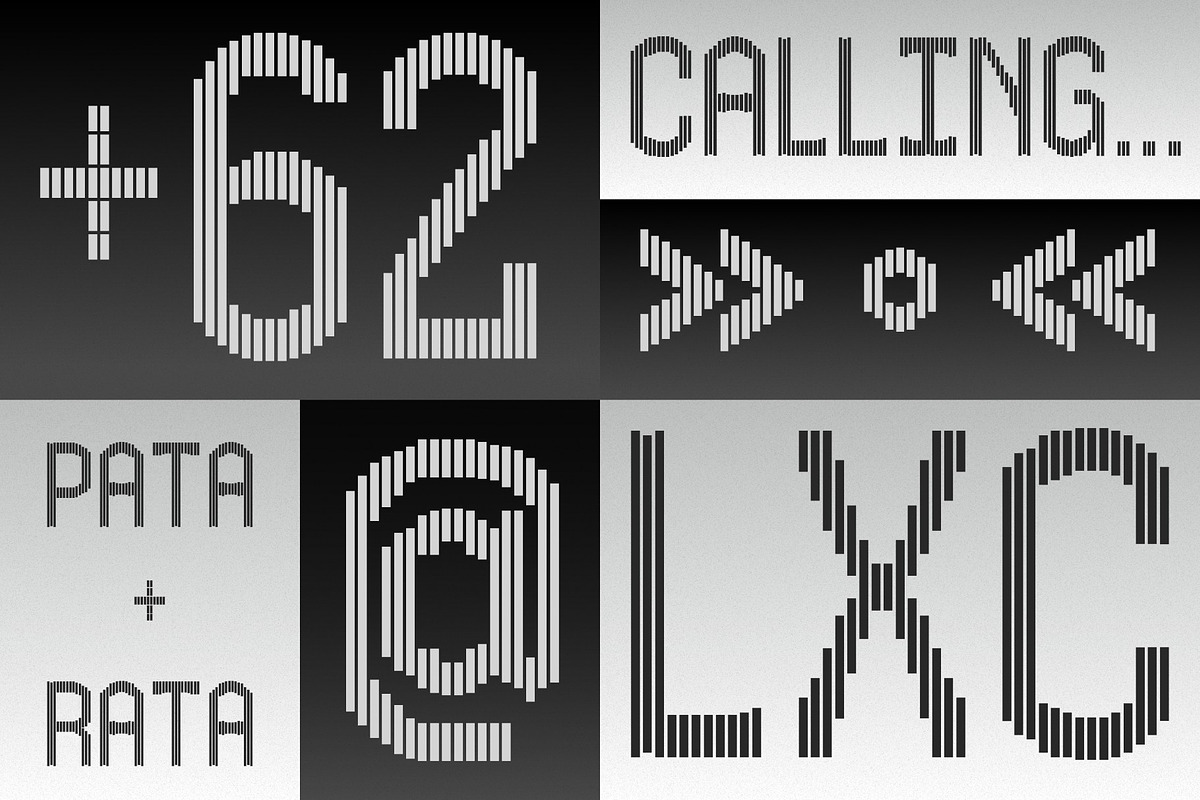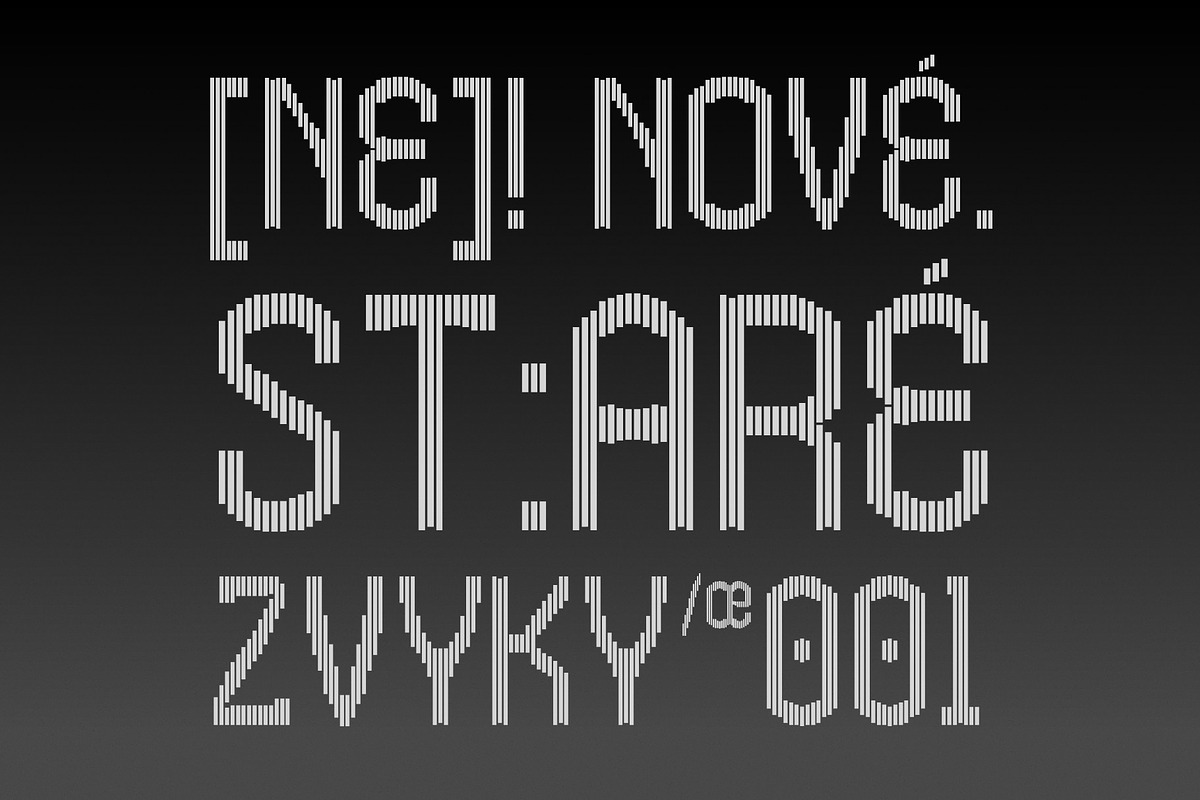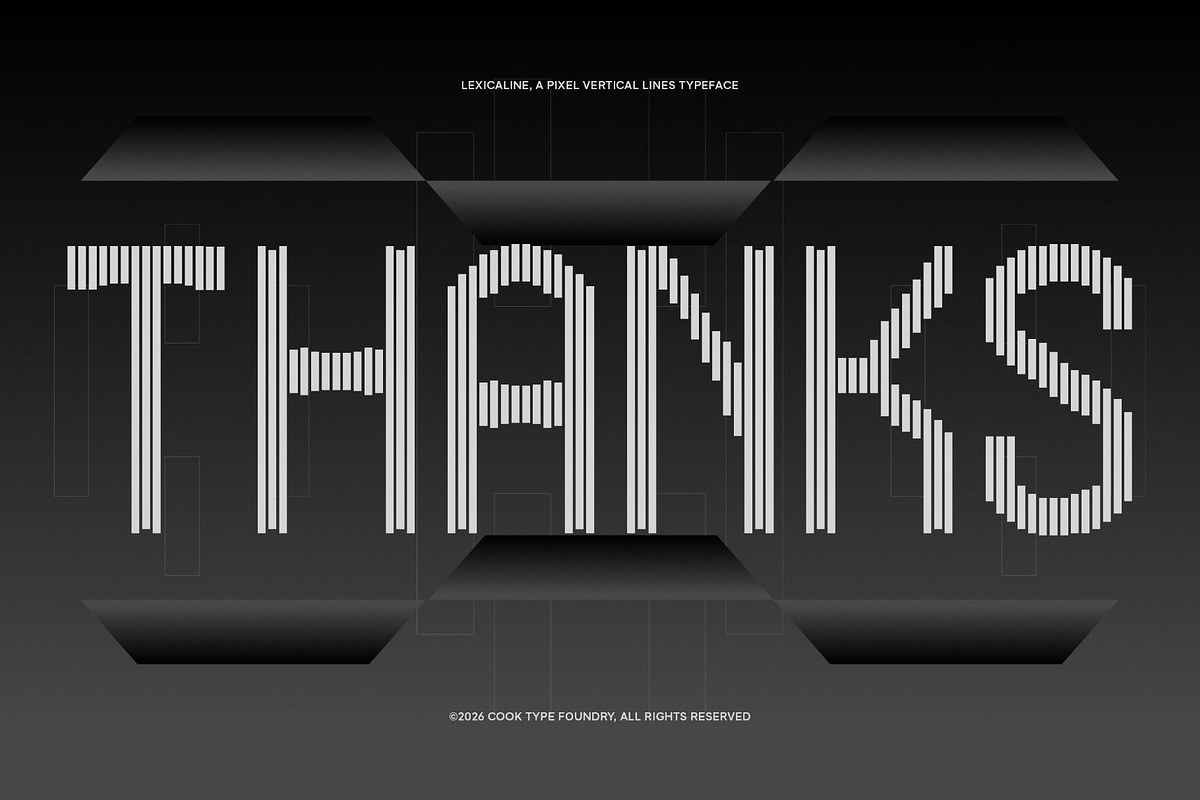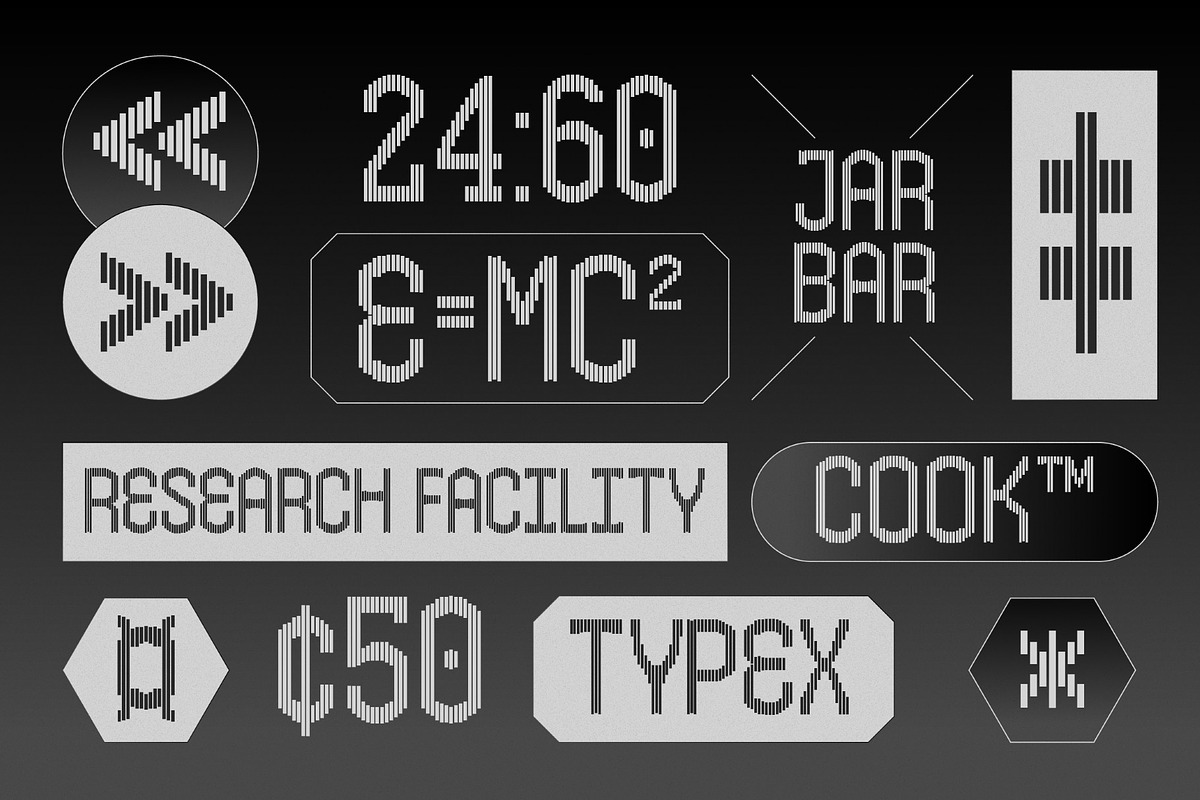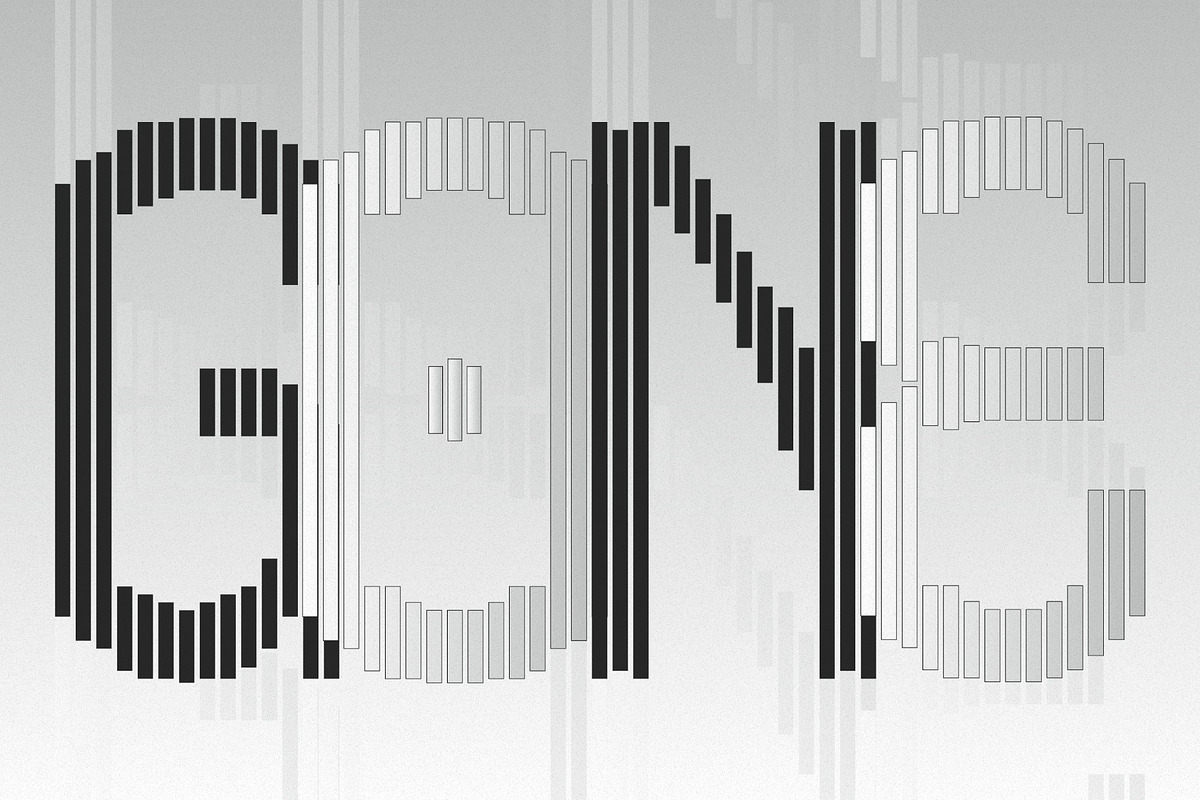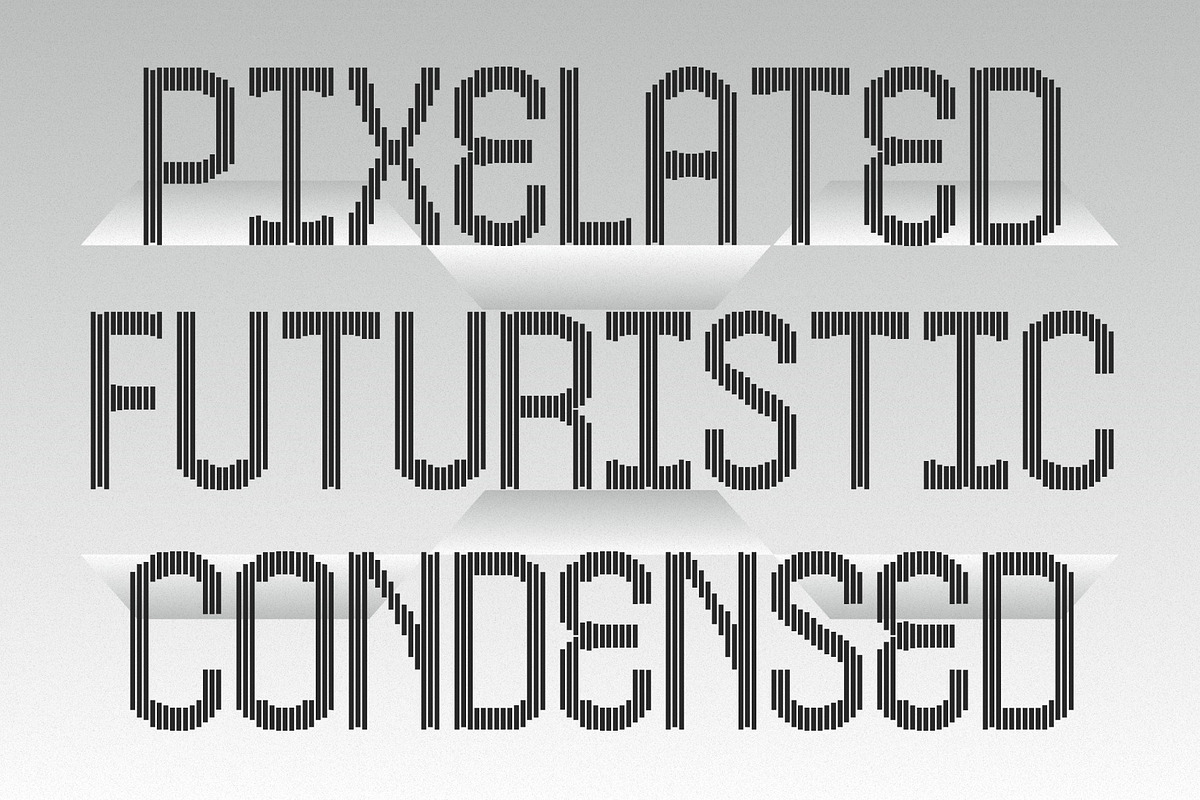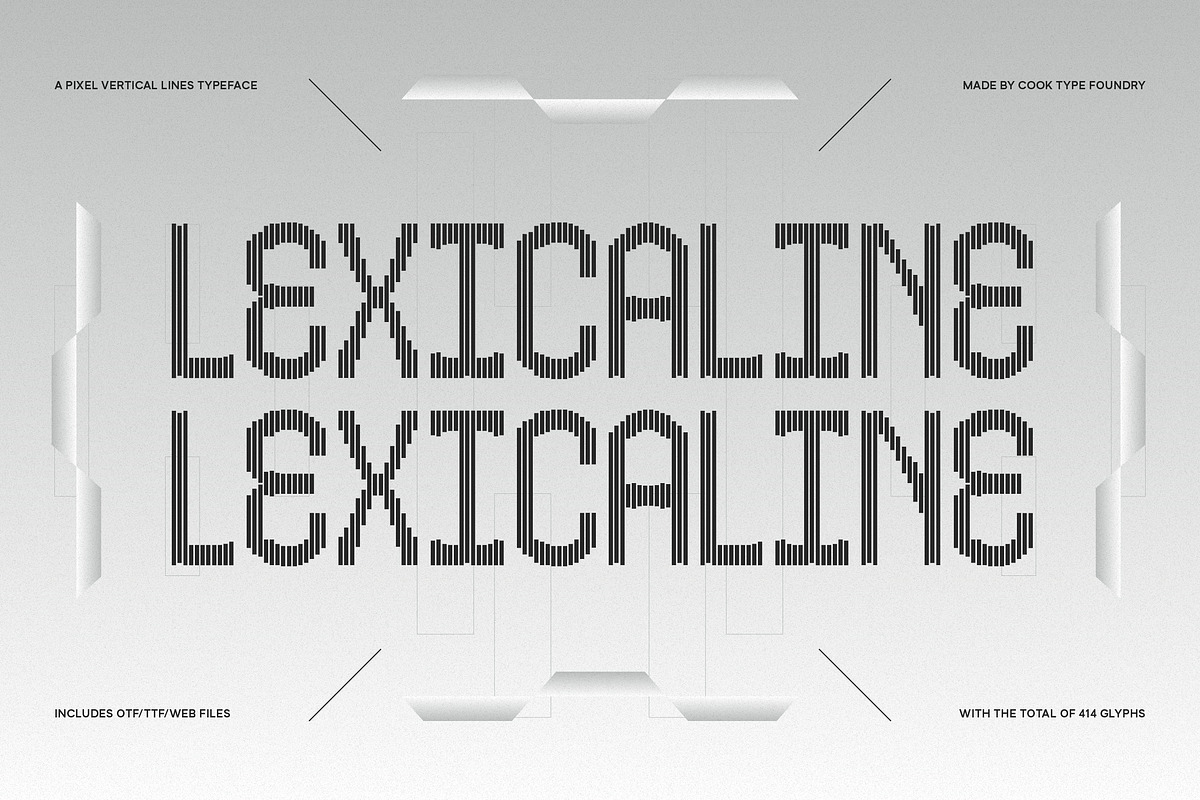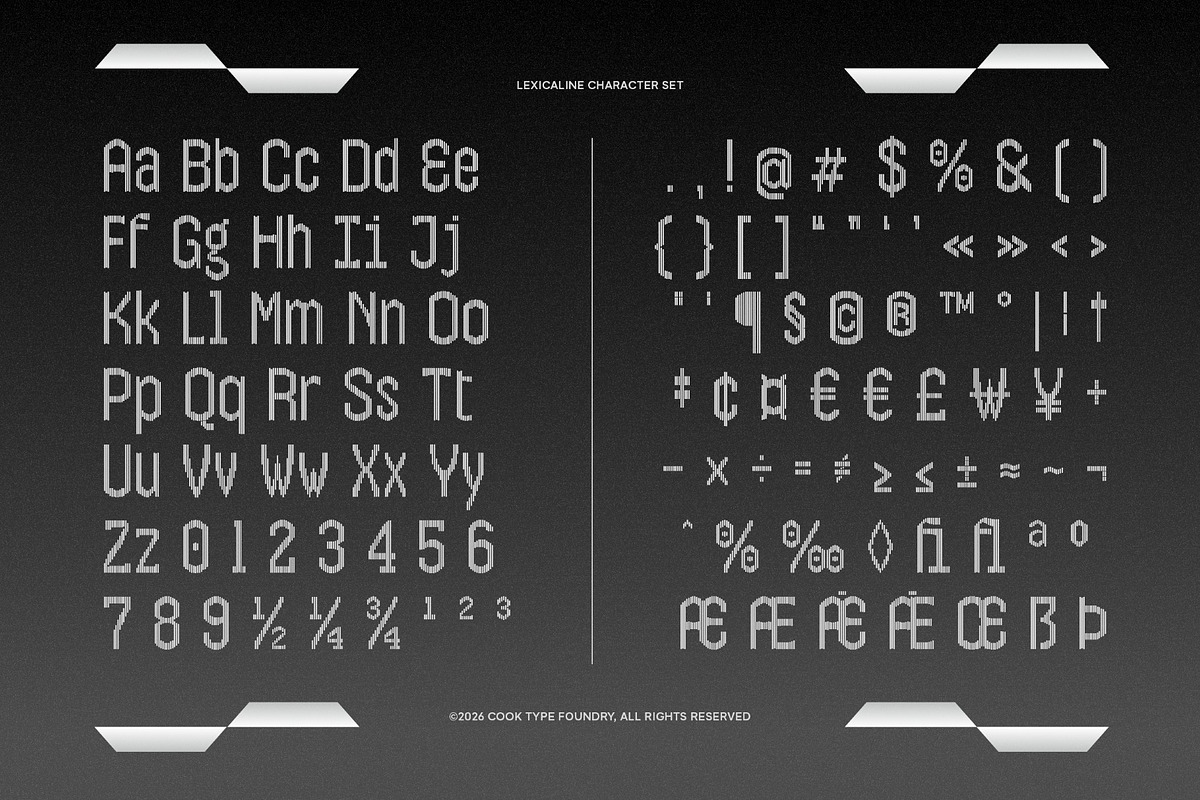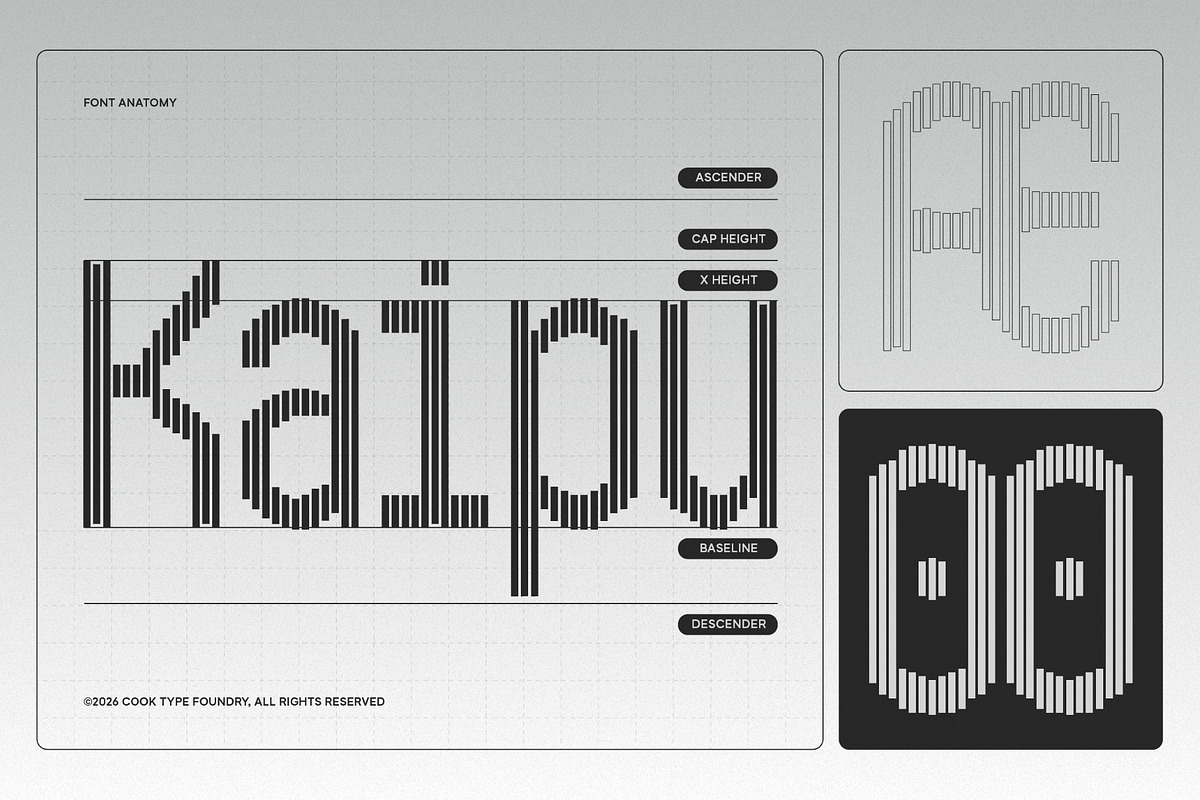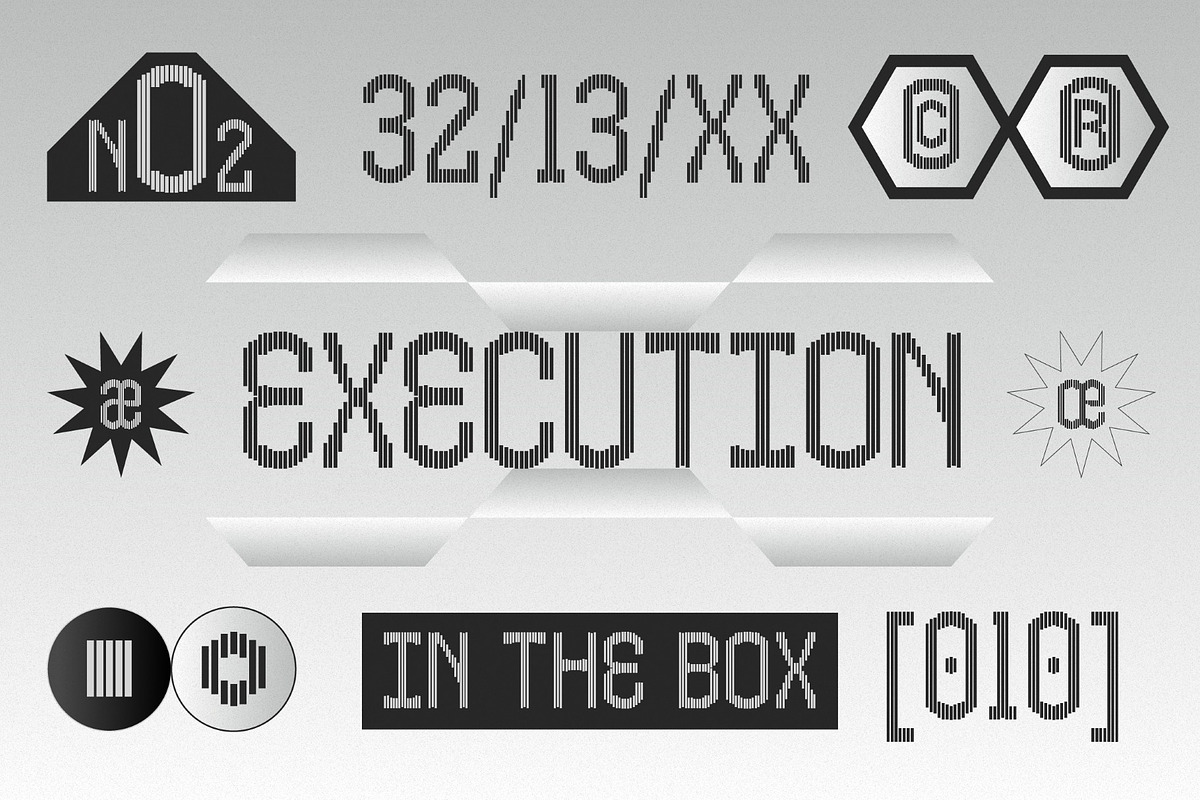
Lexicaline
Lexicaline is a futuristic pixel display typeface built from precise vertical lines, giving each letter a distinctive technical and digital character. Its structured construction combines geometric forms with a subtle retro-computing aesthetic, creating a bold visual texture while keeping the letterforms clear and recognizable. Lexicaline works especially well at large sizes where its vertical-line construction can become a strong graphic element.
It is perfect for headlines, logotypes, magazines, packaging, quotes, movies, games, cover albums, book covers, and flyers, it's a perfect solution for creating eye-catching designs that stand out in any context.